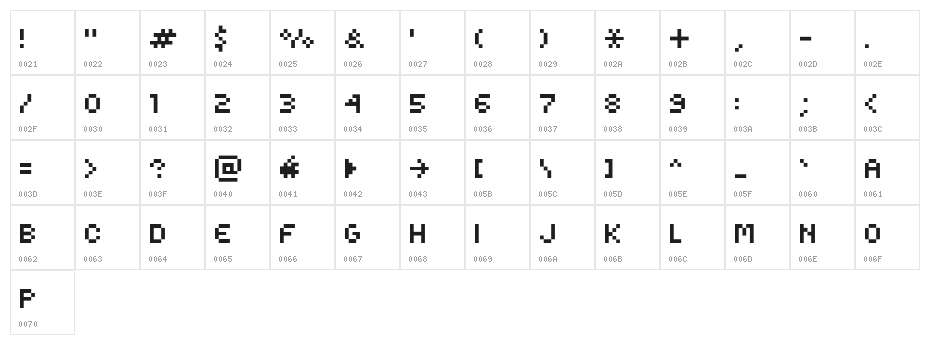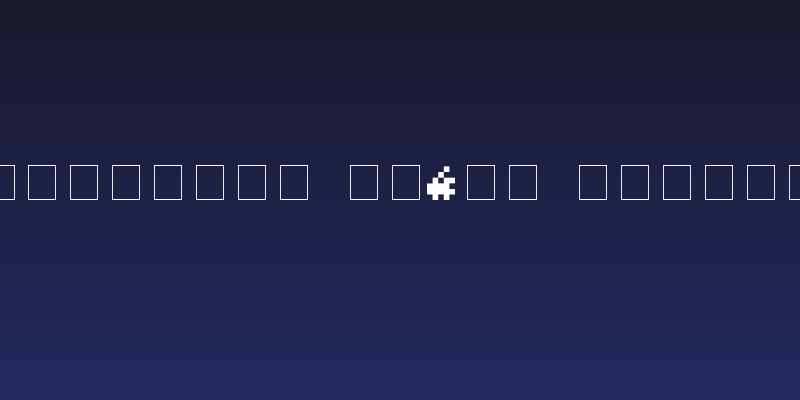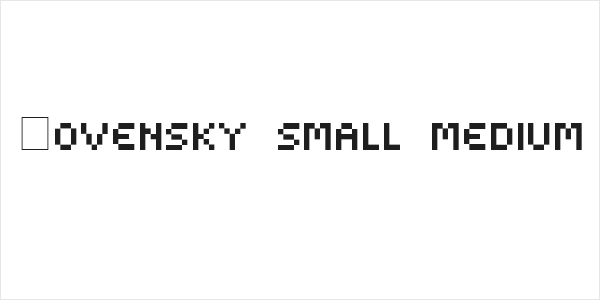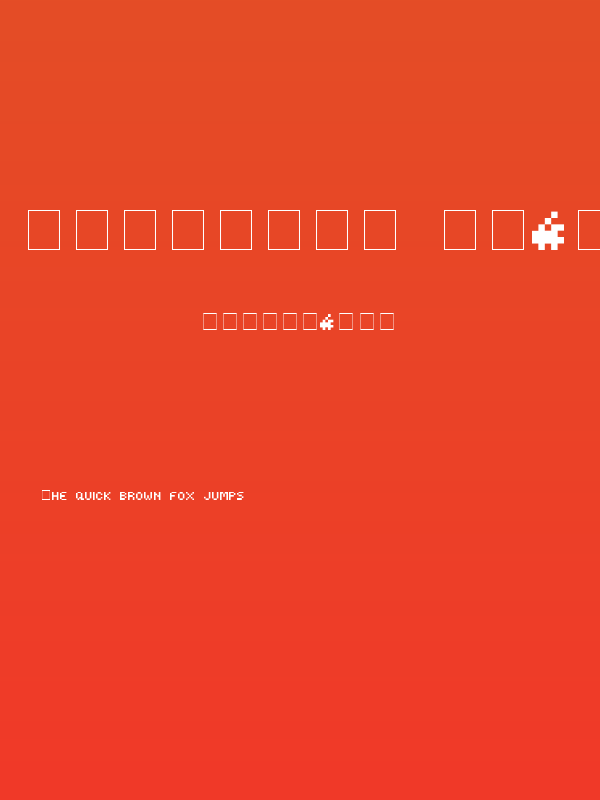
Kovensky small medium Font
| Style général | Retro, Digital |
| Cas d'utilisation | Headlines, Logos, Digital Art |
| Projets proposés | Ideal for retro video game designs, tech-themed posters, digital art projects, and any creative work that requires a nostalgic or digital feel. |